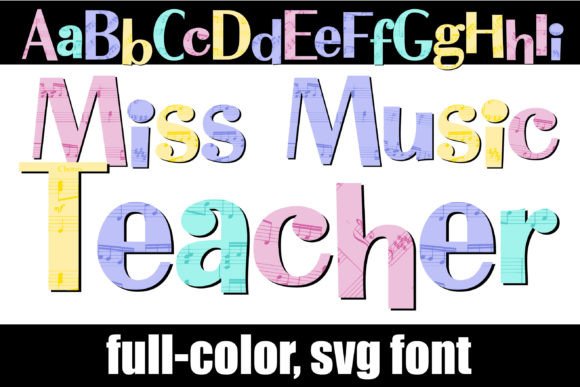
Introducing the captivating and enchanting Miss Music Teacher Font, the best font for music flyers. Created by the talented designers at Illustration Ink, this font family is a colorful masterpiece that will leave you breathless.
Imagine a world where your words dance on the page, captivating your audience with the beauty of music-inspired lettering. With Miss Music Teacher Font, that world becomes a reality. Each letter is meticulously crafted with vibrant spring and pastel colors, creating a visual symphony that will capture anyone's attention.
But that's not all - Miss Music Teacher Font also offers an alternate version with even more colors. Simply access your system's character map, and you'll find a treasure trove of additional hues for each letter. It's like having a rainbow at your fingertips, ready to bring your designs to life.
Why settle for ordinary when you can have extraordinary? Miss Music Teacher Font is not just a font - it's a gateway to a world of endless creativity. Let your imagination soar as you design captivating music flyers, posters, album covers, and more. With this font, your projects will stand out from the crowd, leaving a lasting impression on anyone who lays eyes on them.